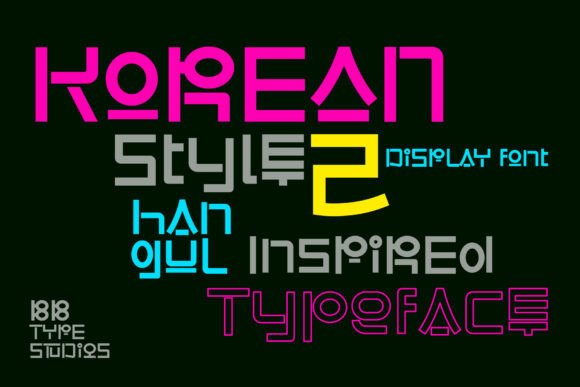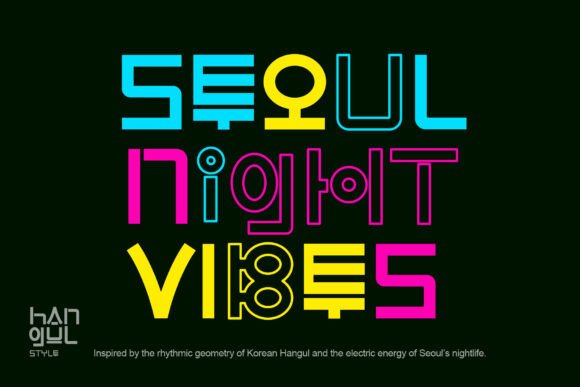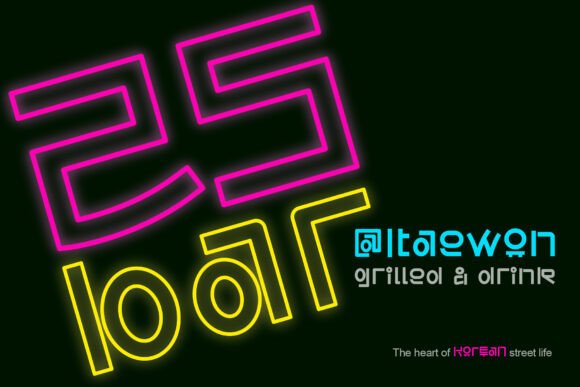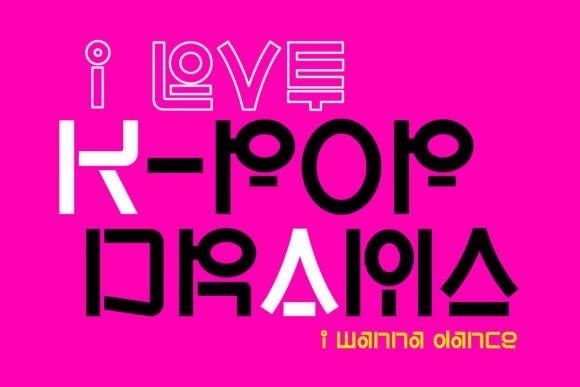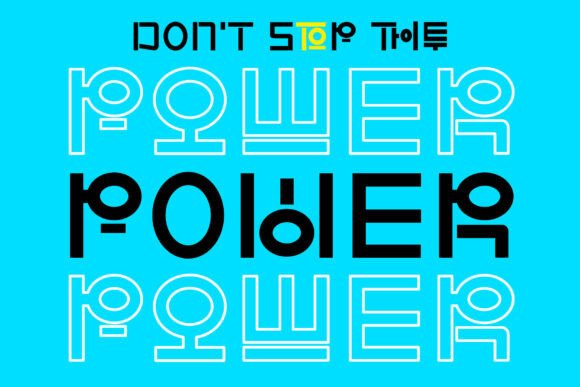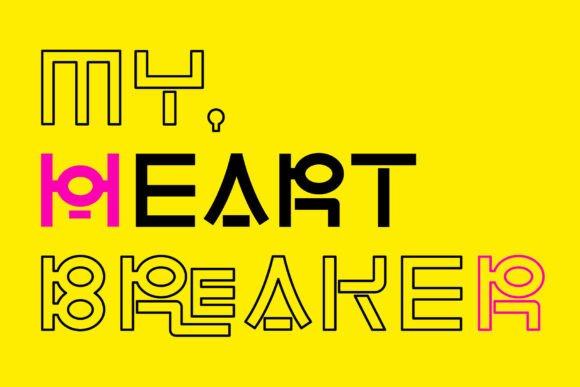
Introduction to Ramyeon Street Font Font
Fonts play a crucial role in design, and the Ramyeon Street Font font is a typeface that brings both character and versatility to any project. Whether you’re working on a branding project, a website, or a print design, the Ramyeon Street Font font offers a unique style that can elevate your work.
Unleash the vibrant spirit of Korea with Ramyeon Street, a standout 2-display font echoing the electrifying energy of Seoul’s bustling night scenes.
Infused with the luminescent allure of neon-lit ramen stalls and street markets, Ramyeon Street effortlessly injects zest and life into your design concepts This font draws inspiration from the distinctive geometry and striking visual tone evocative of K-culture, adding a robust touch of Korean flair to your style toolbox.
Key Features of Ramyeon Street Font Font
Why Choose Ramyeon Street Font Font?
The Ramyeon Street Font font is more than just a typeface – it’s a design tool that helps you communicate your message with style and clarity. Its unique character set and versatile design make it suitable for a wide range of applications, from elegant invitations to bold headlines.
With its carefully crafted letterforms and balanced proportions, the Ramyeon Street Font font ensures readability and visual appeal across all mediums.
What makes Ramyeon Street Font font special?
The Ramyeon Street Font font stands out with its unique design, exceptional readability, and versatility across various design applications.